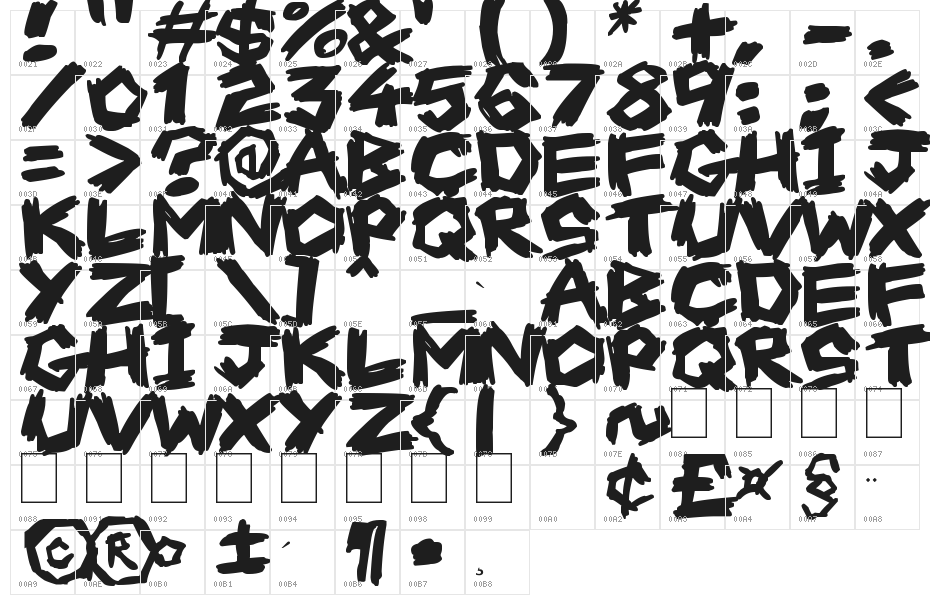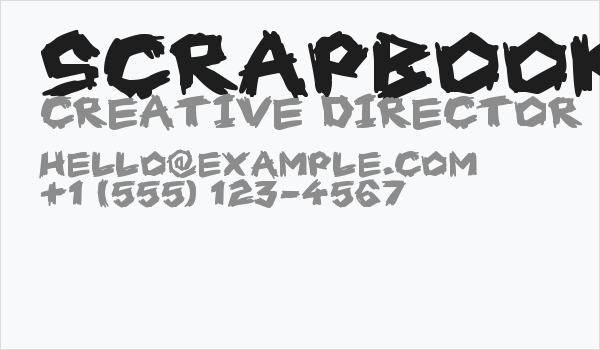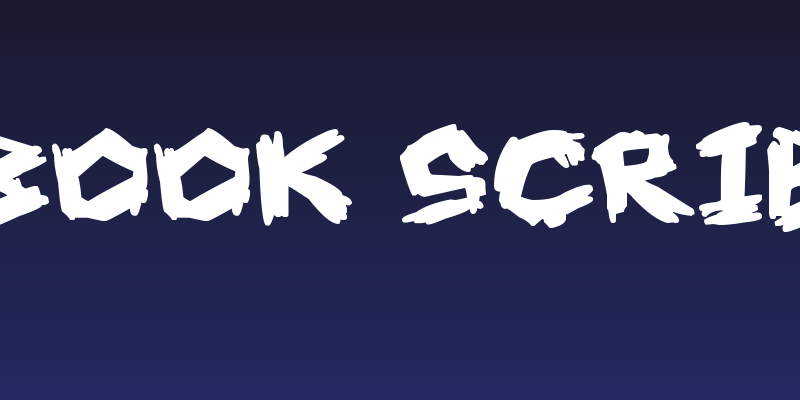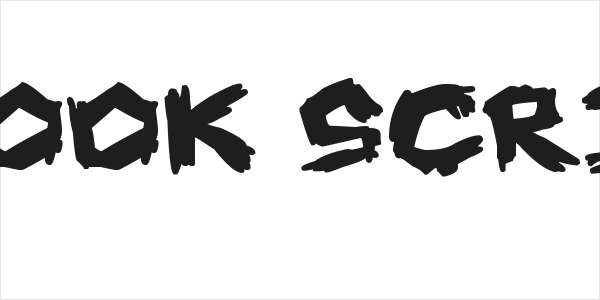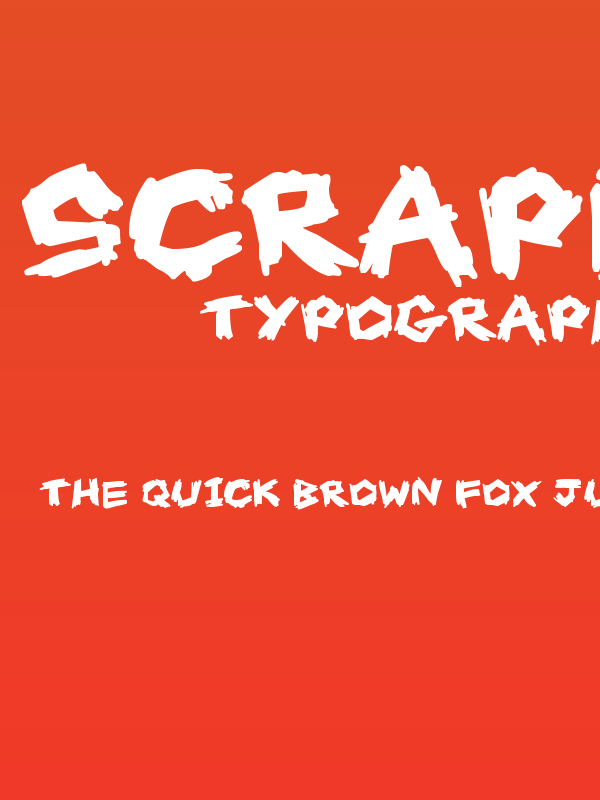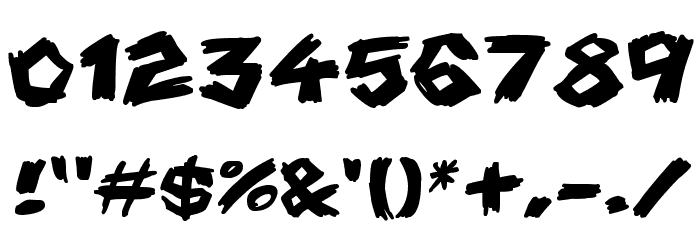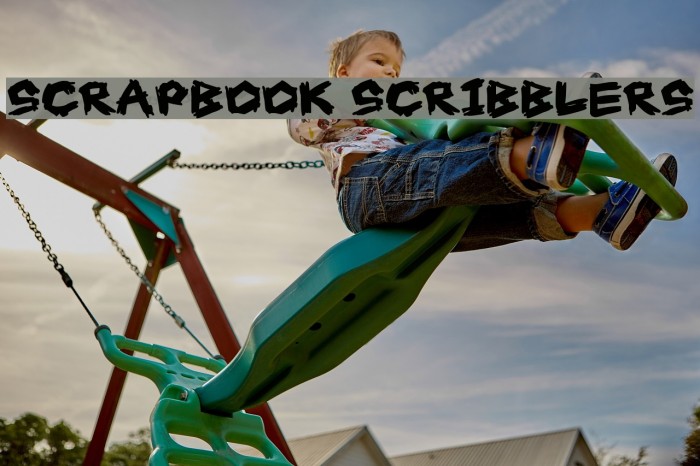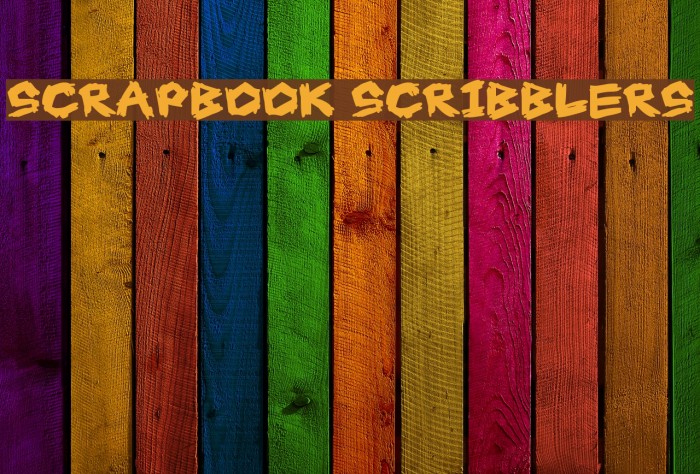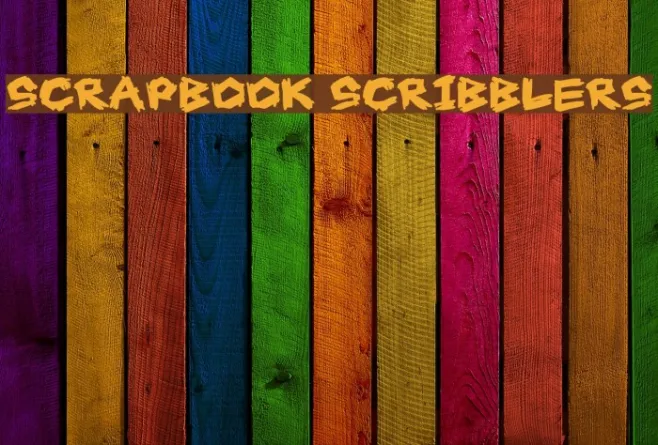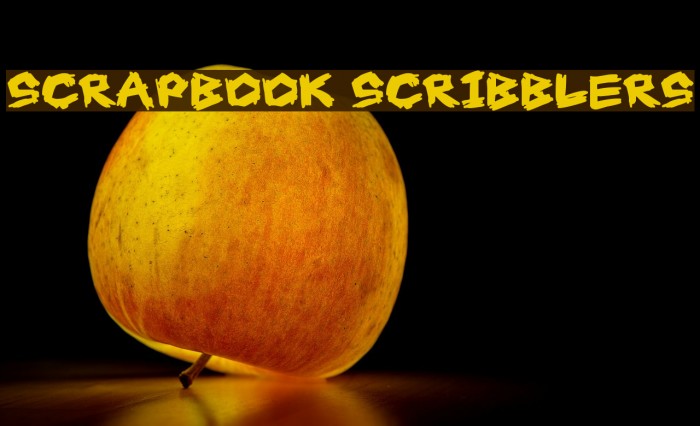
Scrapbook Scribblers Font
Scrapbook Scribblers Description
This font features a bold, energetic style with a hand-drawn appearance. The characters are irregular and dynamic, giving a sense of movement and spontaneity. The strokes are thick and uneven, creating a rugged and playful aesthetic. The uppercase and lowercase letters maintain a consistent style, with jagged edges and a slightly tilted orientation. The numbers and special characters follow the same lively design, making the font suitable for creative and informal projects.
| Overall Style | Playful, Energetic, Hand-drawn |
| Proposed Projects | Ideal for scrapbooking, posters, children's book covers, and creative branding projects. |